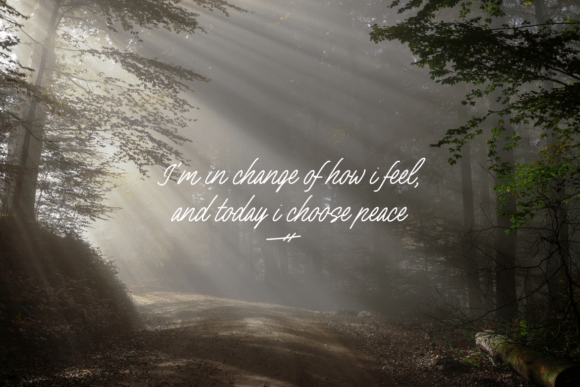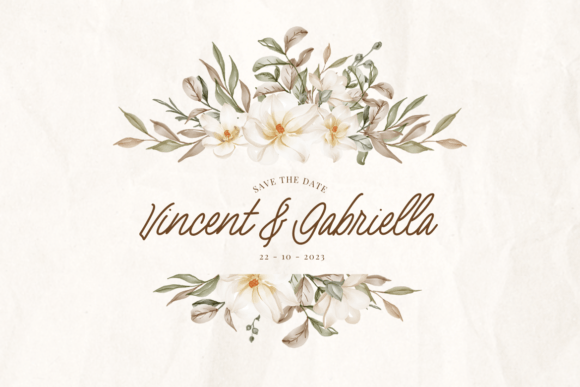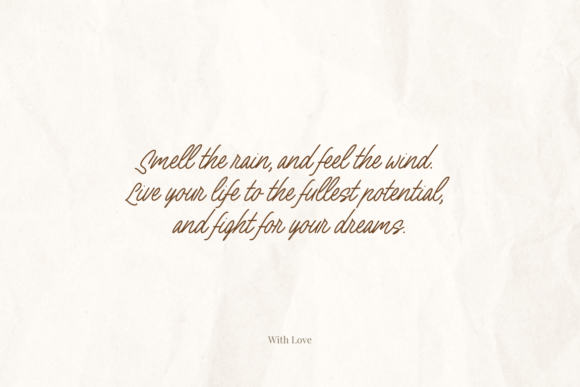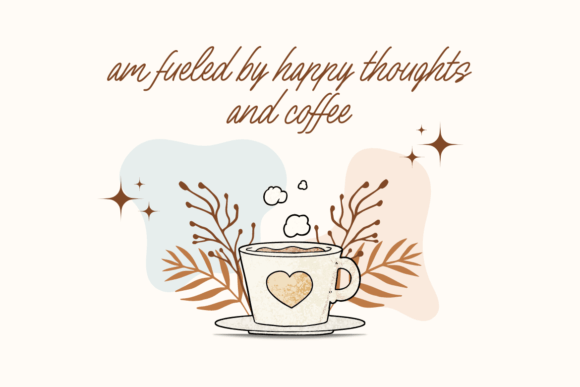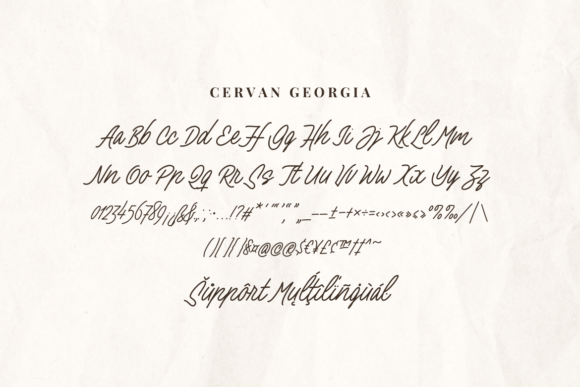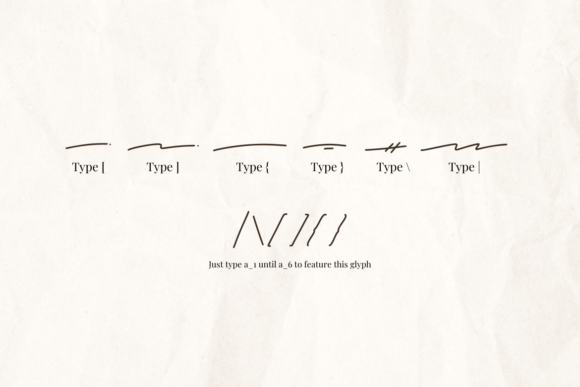
Cervan Georgia Font: Elevate Your Designs with Elegance and Simplicity
In the world of typography, a font can make or break a design. For those seeking a stylish and gorgeous handwritten script font that embodies simplicity and elegance, look no further than Cervan Georgia. This beautiful font is perfect for designers, crafters, and DIY enthusiasts looking to add a touch of sophistication to their projects. In this article, we’ll dive into the features and benefits of Cervan Georgia, and explore how it can elevate your designs to the next level.
A Font Defined by Simplicity and Elegance
Cervan Georgia is a stunning handwritten script font that exudes simplicity and elegance. Its clean lines, flowing curves, and balanced proportions make it an ideal choice for a wide range of design applications. Whether you’re creating social media graphics, invitations, or DIY projects, this font is sure to impress. Its classic yet modern aesthetic ensures that your designs will stand out from the crowd and leave a lasting impression.
Perfect for Instagram and DIY Projects
In today’s digital age, visual content is king. For Instagram enthusiasts and DIY crafters, having a font that can help you create stunning graphics is essential. Cervan Georgia is the perfect solution. Its elegant and sophisticated design makes it ideal for creating eye-catching Instagram posts, stories, and captions. Additionally, its versatility and ease of use make it perfect for calligraphy scripts, journaling, and other DIY projects.
One of the standout features of Cervan Georgia is its PUA (Private Use Area) encoding. This means that you can access all of the glyphs and swashes with ease, giving you complete creative control over your designs. With PUA encoding, you can effortlessly navigate the font’s extensive character set, including alternates, ligatures, and ornaments. This feature makes it easy to create unique and complex designs, without the need for advanced font editing skills.
Cervan Georgia offers endless creative possibilities for designers and crafters. Its elegant and sophisticated design makes it perfect for a wide range of applications, including:
- Invitations and event branding
- DIY projects, such as journaling and scrapbooking
- Calligraphy and hand lettering
Why Choose Cervan Georgia?
With so many fonts available, why choose Cervan Georgia? Here are just a few reasons:
- Unique and elegant design: Cervan Georgia’s sophisticated aesthetic sets it apart from other fonts.
- PUA encoded: Easy access to glyphs and swashes for effortless design.
- Versatile: Suitable for a wide range of design applications.
- Easy to use: Simple to navigate and edit, even for beginners.
Cervan Georgia is a stylish and gorgeous handwritten script font that is sure to elevate your designs to the next level. With its elegant and sophisticated aesthetic, PUA encoding, and versatility, it’s the perfect choice for designers, crafters, and DIY enthusiasts. Whether you’re looking for a font for Instagram, calligraphy scripts, or DIY projects, Cervan Georgia is an excellent choice. So why wait? Download Cervan Georgia today and unlock a world of creative possibilities!